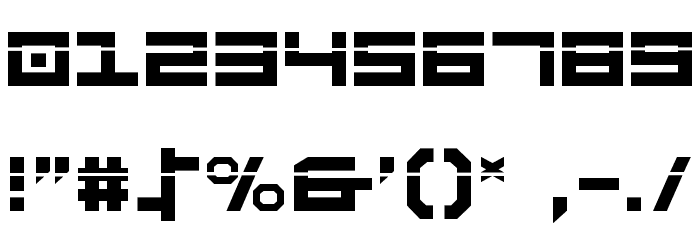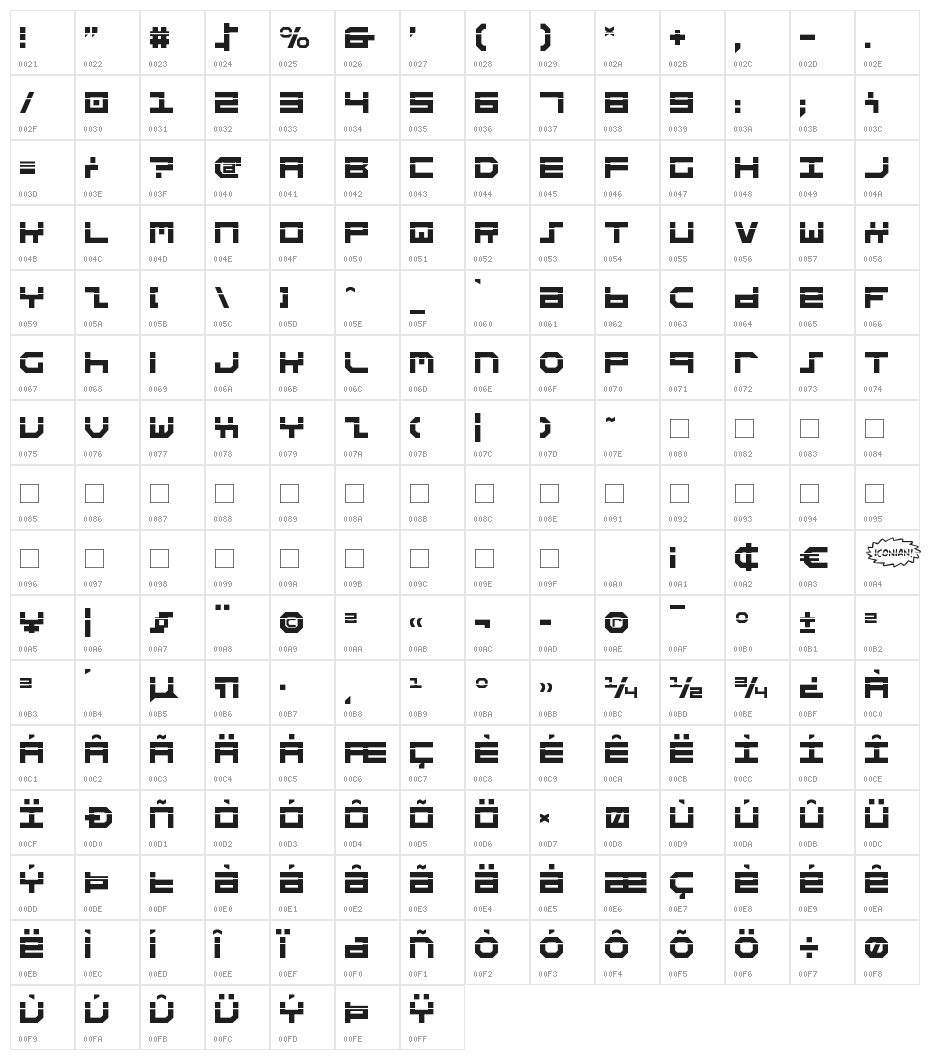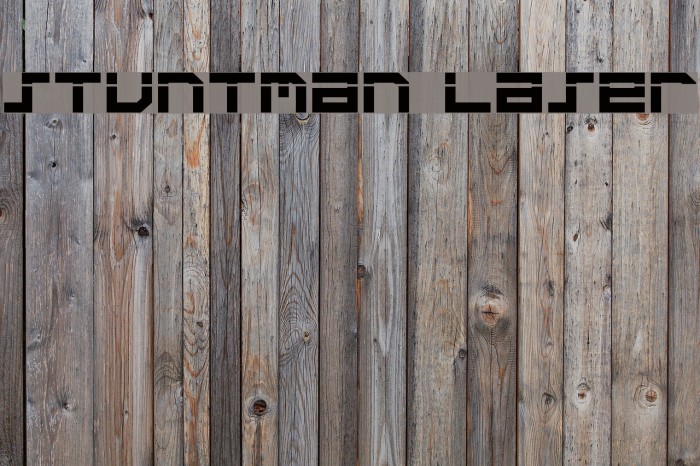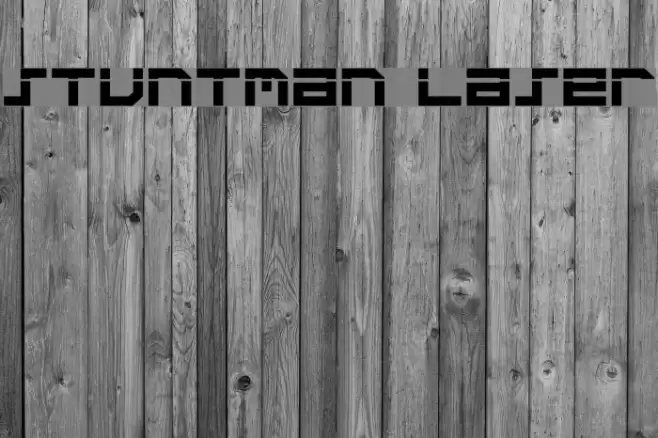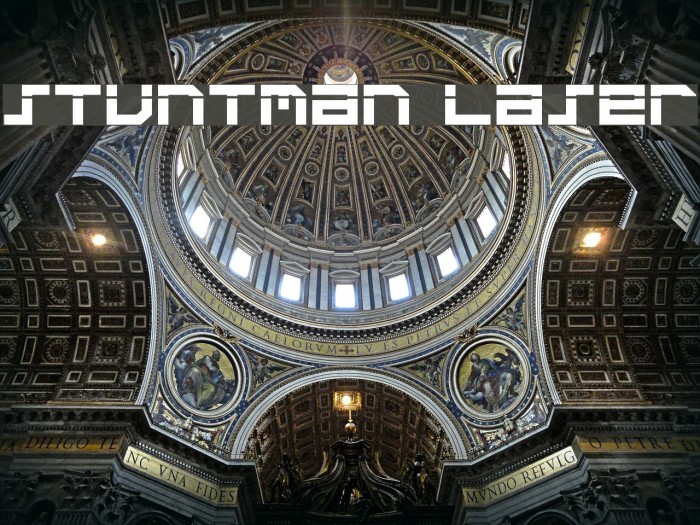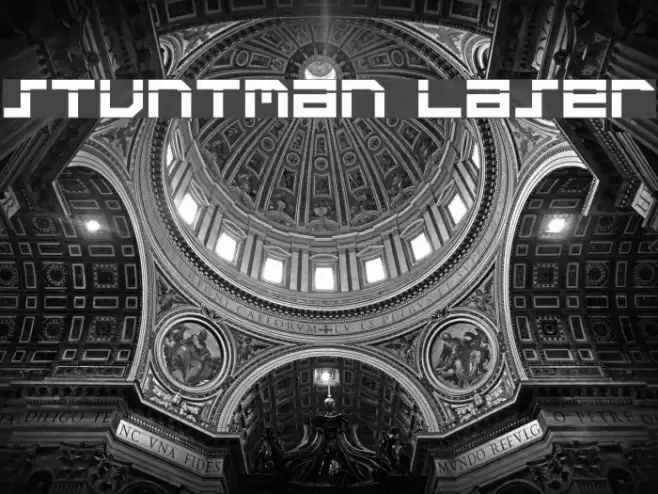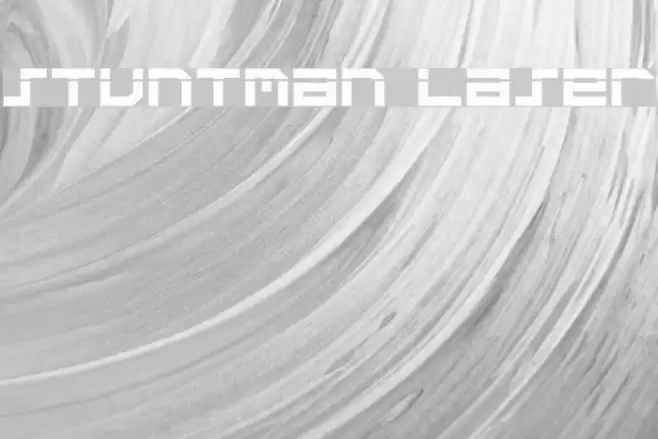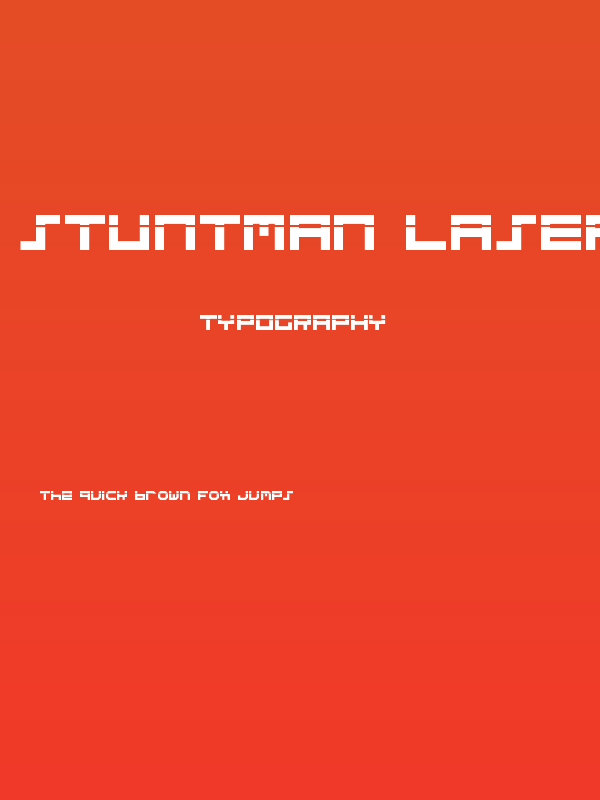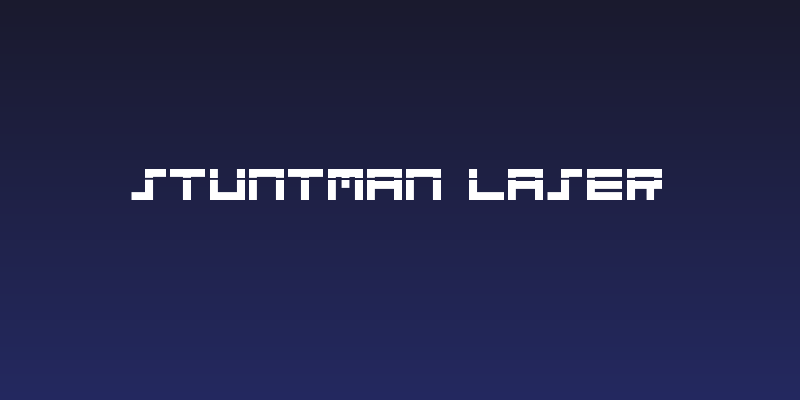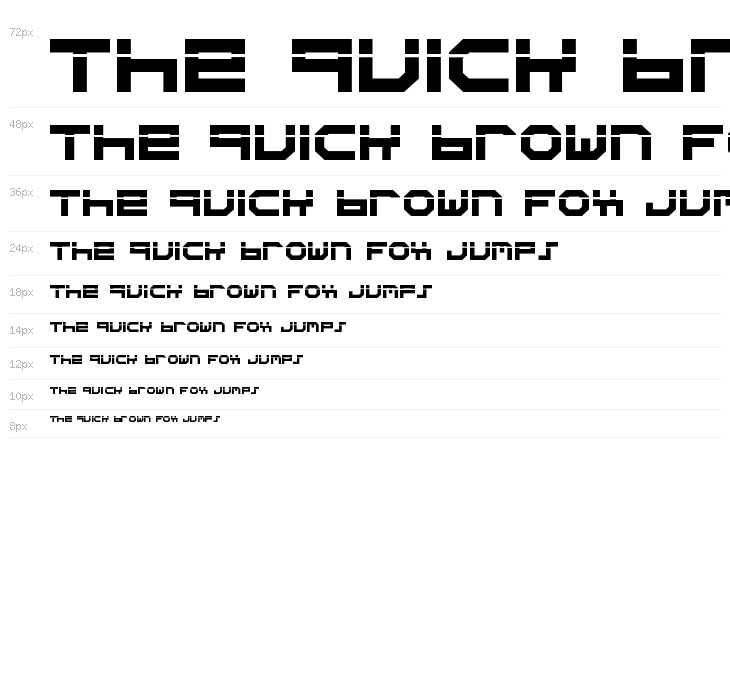
Stuntman Laser Font
Stuntman Laser Description
This font features a bold, futuristic design with a geometric and angular structure. The characters are constructed with sharp edges and straight lines, giving it a digital, high-tech appearance. The uppercase and lowercase letters maintain a consistent style, with the lowercase slightly smaller but equally bold. Numbers and special characters follow the same design principles, ensuring uniformity across all glyphs. The font's distinct style makes it stand out, ideal for projects that require a modern and edgy look.
STUNTMAN-LASER UPPERCASE
STUNTMAN-LASER LOWERCASE
STUNTMAN-LASER OTHER CHARS
| Proposed Projects | Ideal for sci-fi themed designs, video game titles, tech branding, and futuristic posters. |